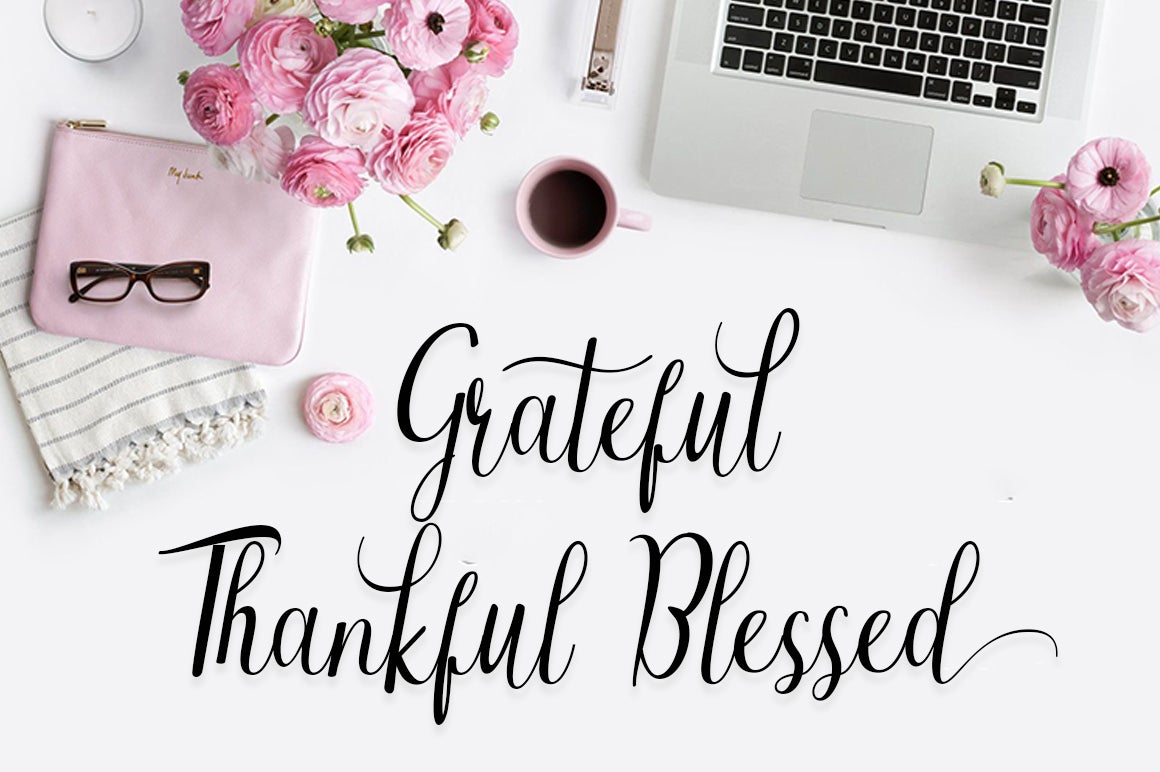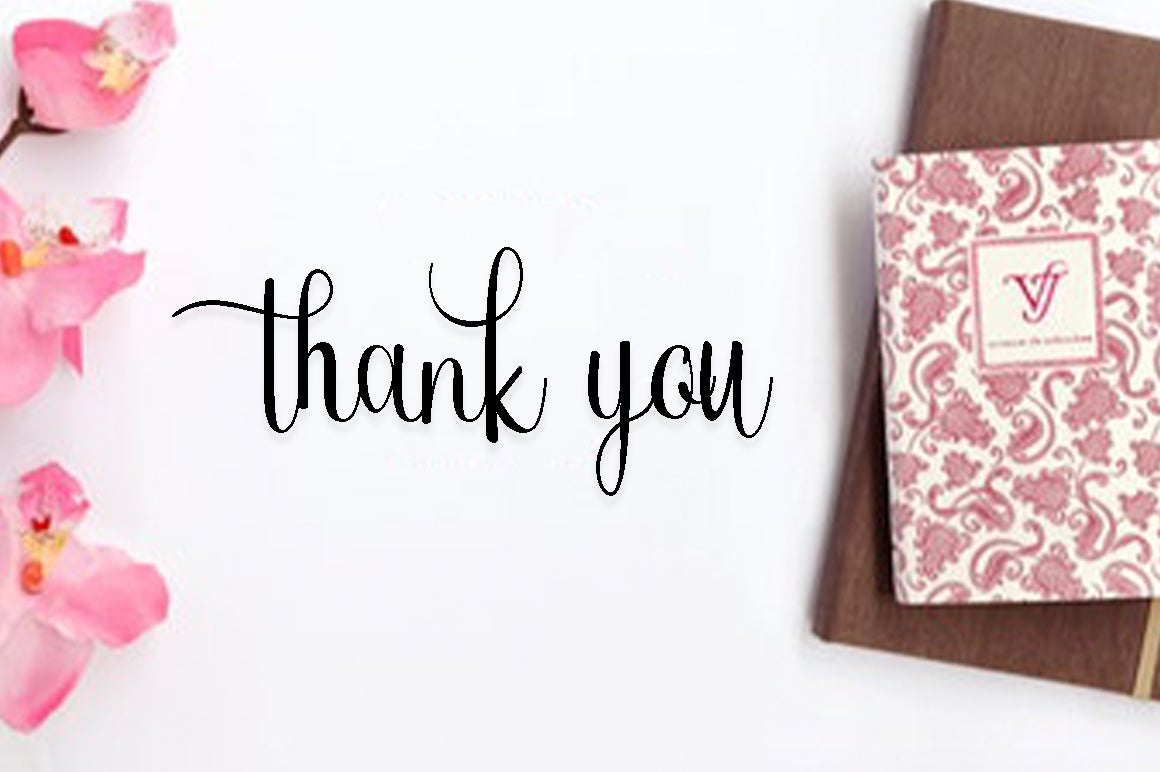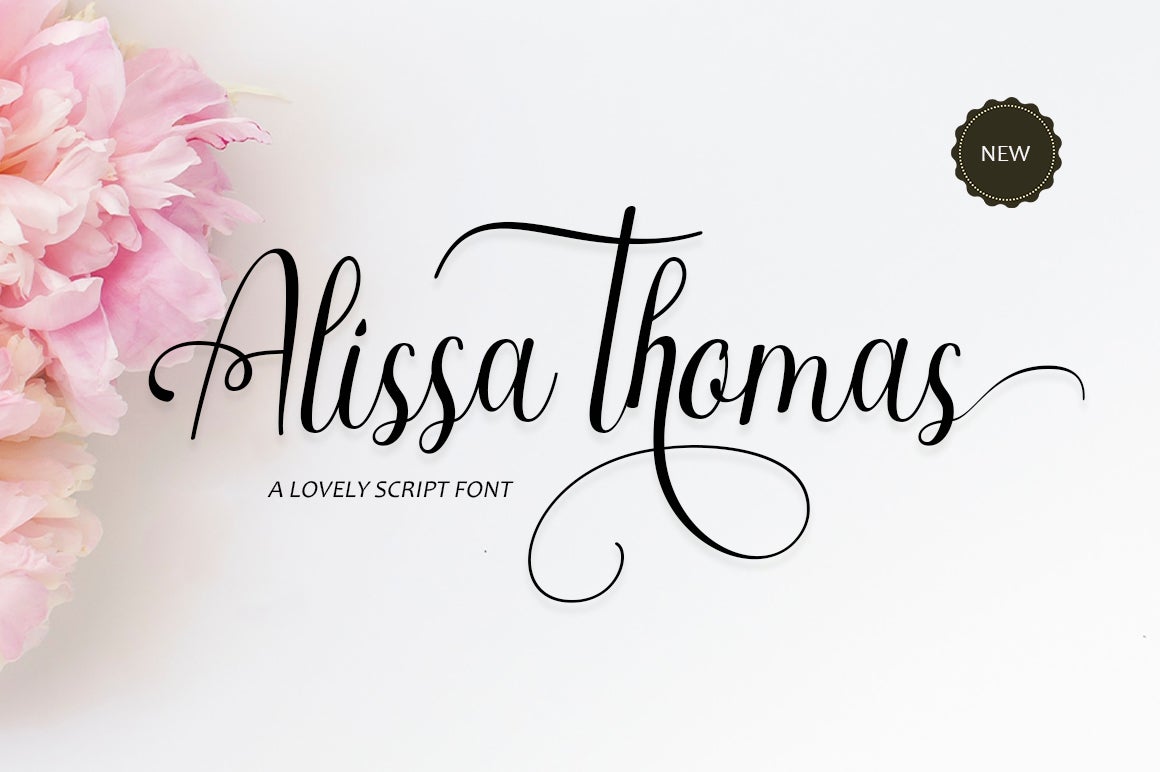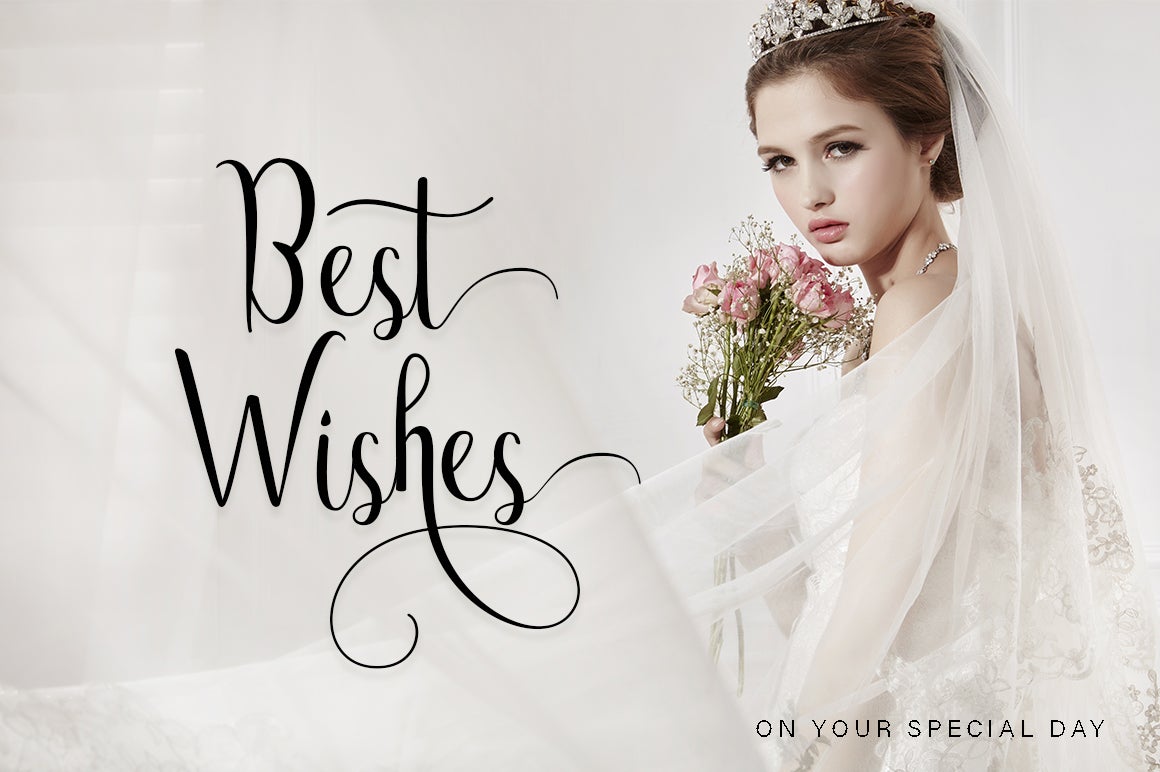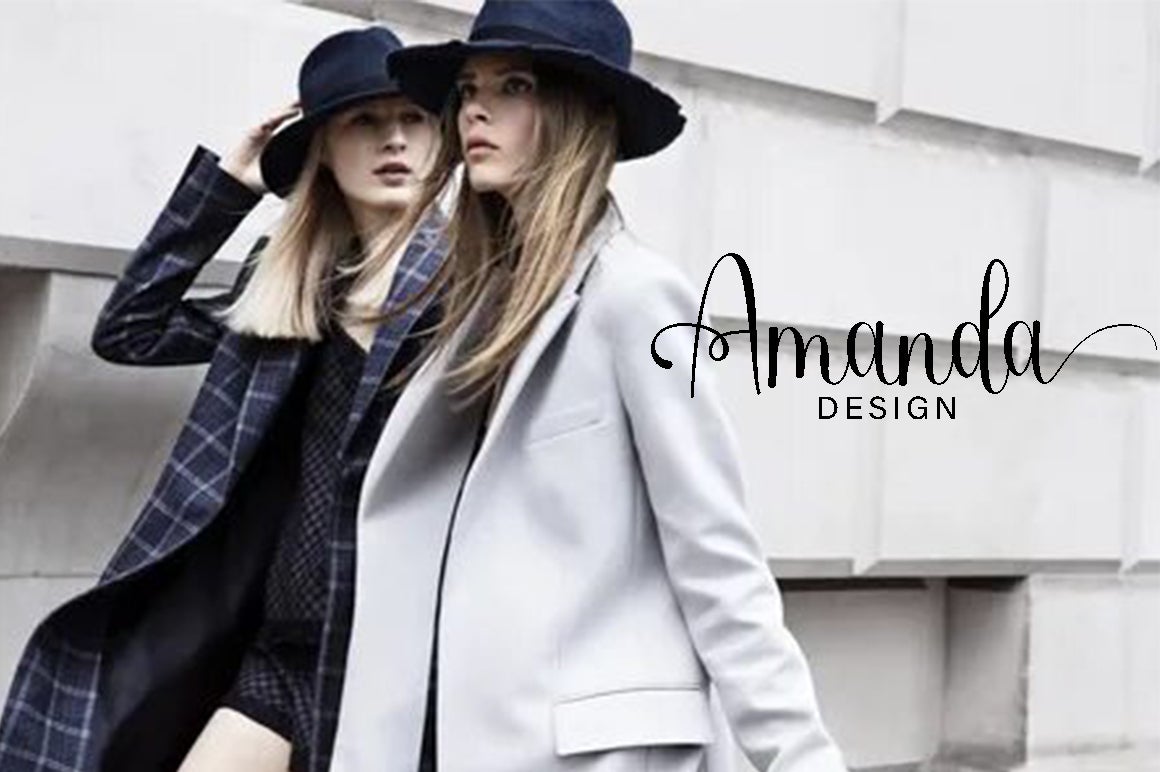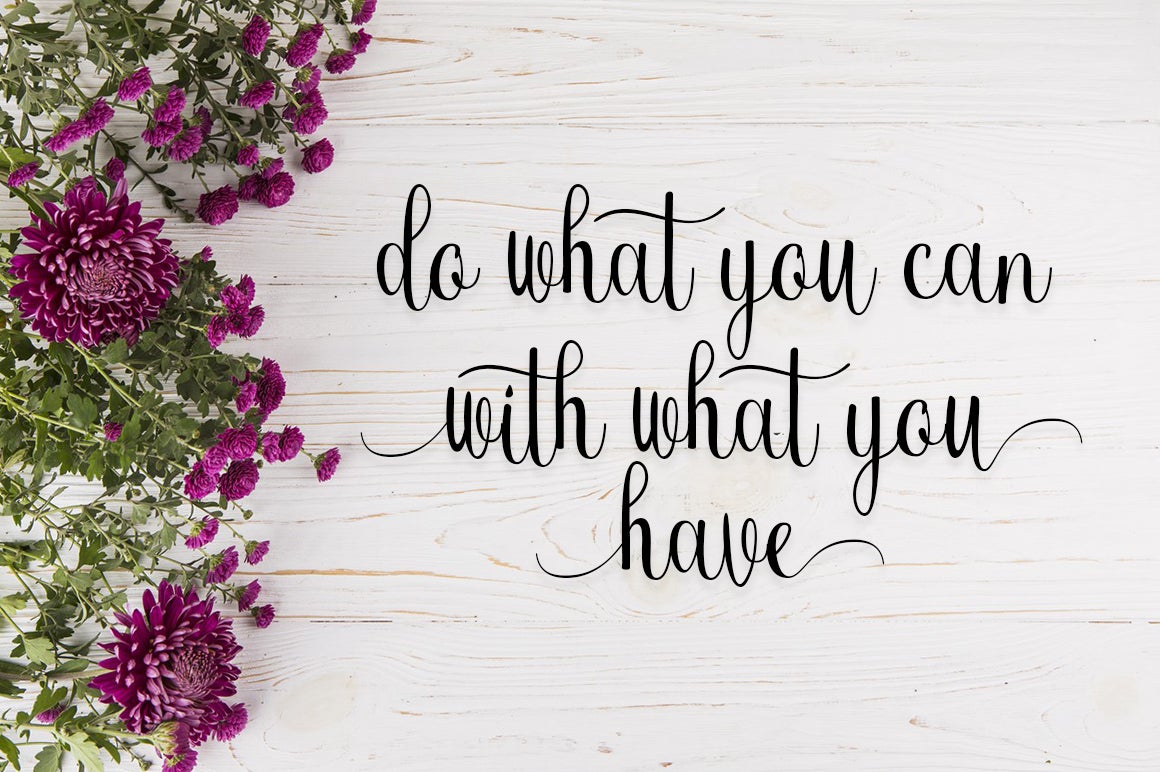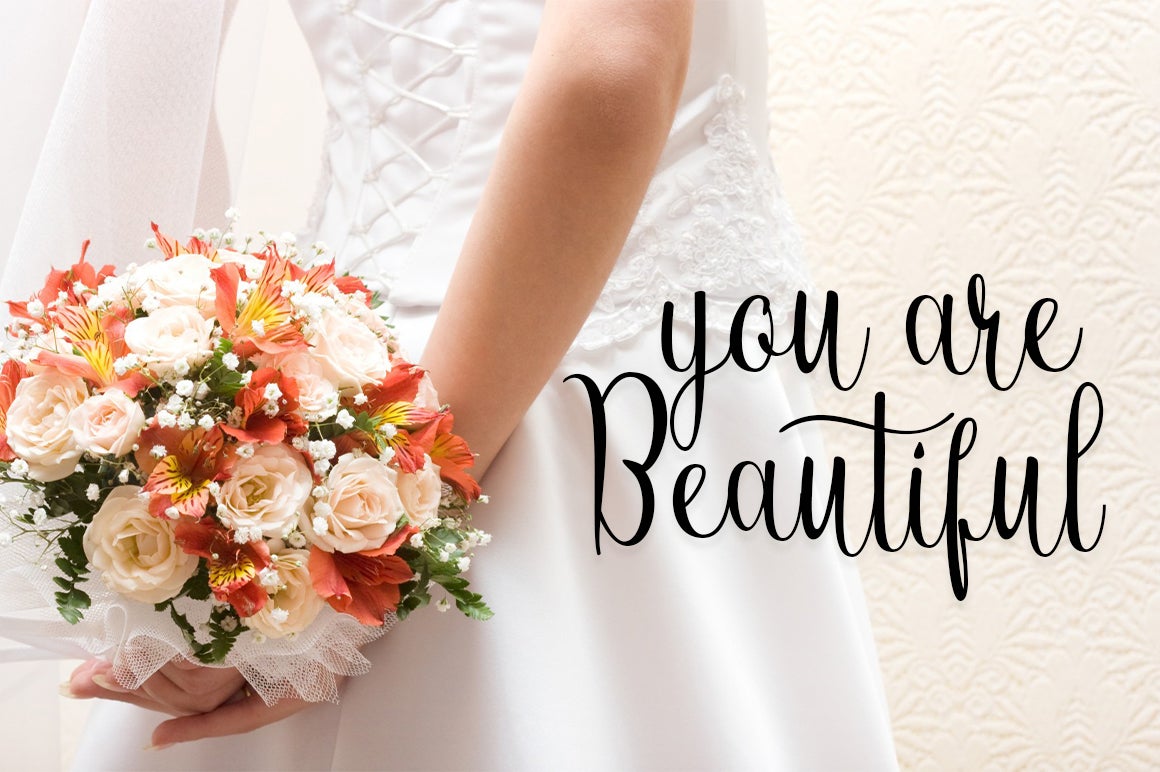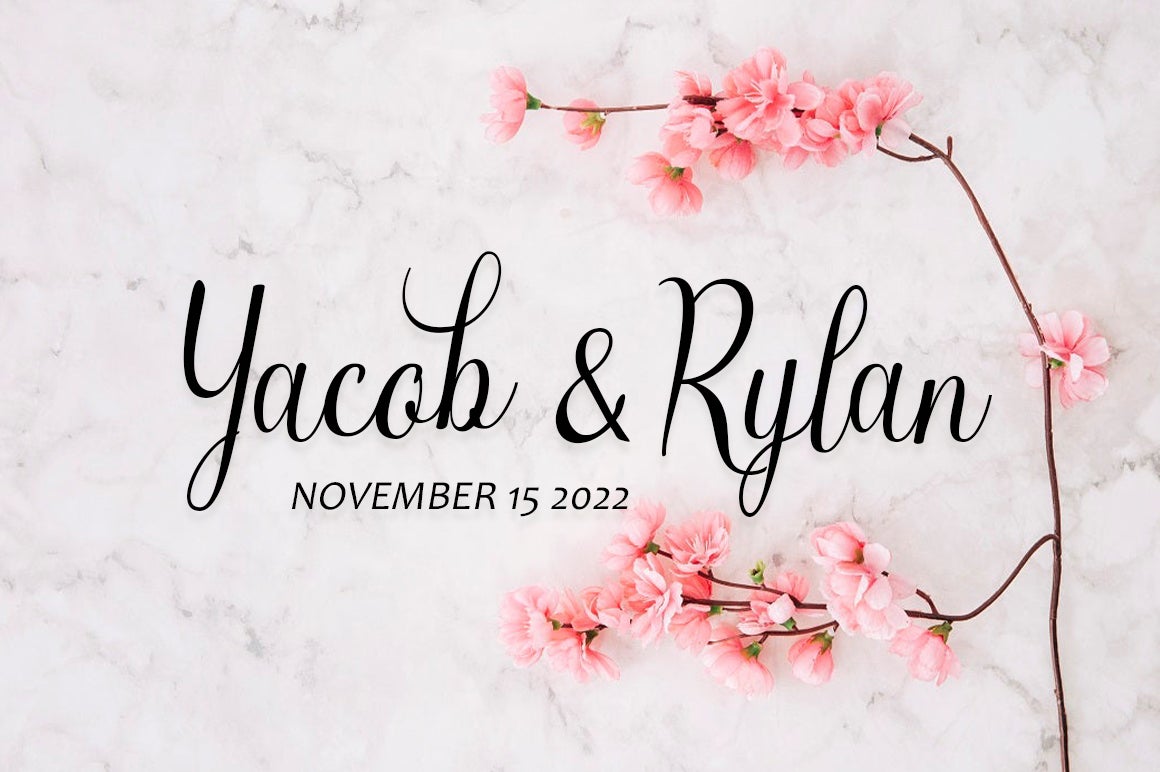
HomeScript FontsAlissa Thomas Script Script Fonts Alissa Thomas Script FacebookTwitterPinterestWhatsApp 1 of 8 ... ... ... ... ... ... ... ... About Alissa Thomas Script The Alissa Thomas is a modern calligraphy font. Its letters dance along the baseline and will give your design an elegant touch. DOWNLOAD NOW People also explored Afia Script Font Shayfinton Font Grenale #2 Simple Planner Font Basic Romantic Font The Magician Font Total Football Font Grey Joy Font Aronica Font 72 0 TagsAlissa Thomas Script Previous articleMollisaNext articleBailey Sidney LEAVE A REPLY Cancel reply Comment: Please enter your comment! Name:* Please enter your name here Email:* You have entered an incorrect email address! Please enter your email address here Website: Save my name, email, and website in this browser for the next time I comment. Personal Use Free Evelyne Personal Use Free Read more about this font Wondery Personal Use Free Read more about this font Vanchrome Personal Use Free Read more about this font Beat My Guest Personal Use Free Read more about this font BLOG Top 7 Google Fonts Alternatives for Faster and Privacy-Friendly Web Design (2025) Top 7 Google Fonts Alternatives for Faster and Privacy-Friendly Web Design (2025) When it comes to web typography, Google Fonts has long been the go-to... Using Fonts in Digital Marketing: Tips to Strengthen Your Brand Identity Free vs Paid Fonts: Why Investing in Premium Fonts Is Worth It Transform Your Website: Elevate Your Typography with 7 Best Web Font Generators